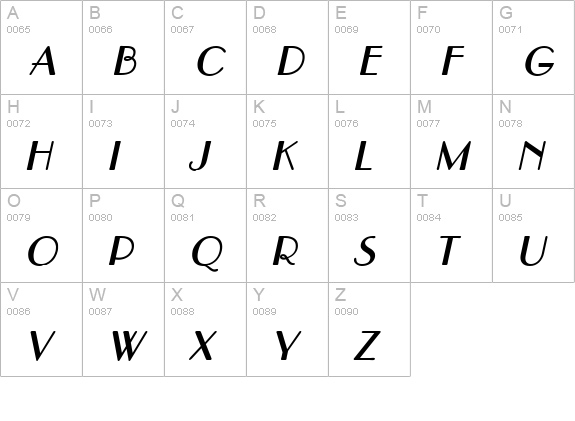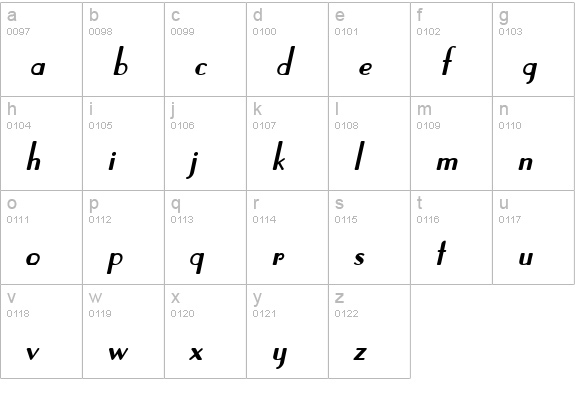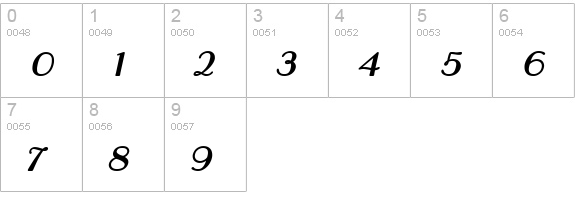
Paris Bold Italic Font Details
Paris Bold Italic is a strong, high-contrast, italic variant in the Paris typeface family \xE2\x80\x94 well suited to headlines, attention-grabbing titles, and strong calls-to-action.
Paris Bold Italic is a stunning and captivating font that effortlessly combines elegance with a touch of modernity. Its bold and italicized letterforms exude confidence and sophistication, making it the perfect choice for creating eye-catching designs. With its sleek and stylish aesthetic, Paris Bold Italic stands out from the crowd, adding a touch of luxury to any project. Whether used for headlines, logos, or branding materials, this font is sure to leave a lasting impression. One of the standout features of Paris Bold Italic is its versatility. It seamlessly adapts to various design contexts, effortlessly conveying both professionalism and creativity. No matter the project, this font has the ability to elevate the visual impact, leaving a lasting impression on viewers. Furthermore, what sets Paris Bold Italic apart is its accessibility. The font is freely available to download at FontsMarket.com, allowing designers, creatives, and enthusiasts alike to effortlessly access this remarkable typeface. This means that anyone can easily incorporate the distinctive charm of Paris Bold Italic into their designs, without any limitations or costs. In conclusion, Paris Bold Italic is a breathtaking font that effortlessly combines elegance, modernity, and accessibility. Its bold and italicized letterforms make a powerful statement, while its versatility ensures it can be used in a wide range of design projects. With its free availability on FontsMarket.com, Paris Bold Italic is truly a font that empowers creativity and enables designers to make a lasting impact.